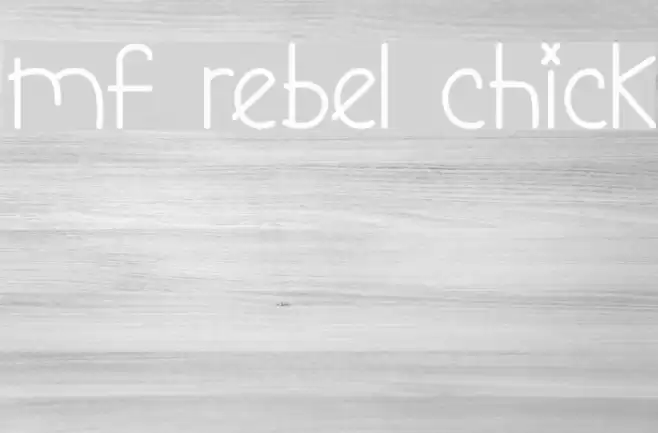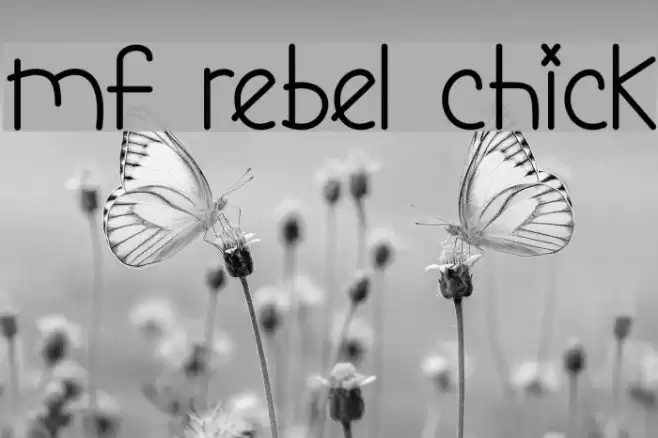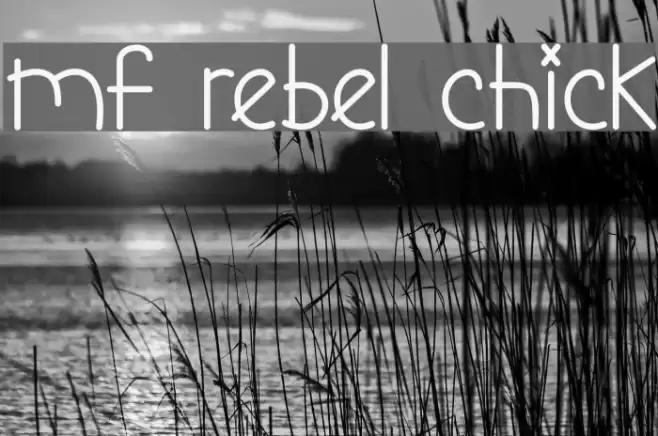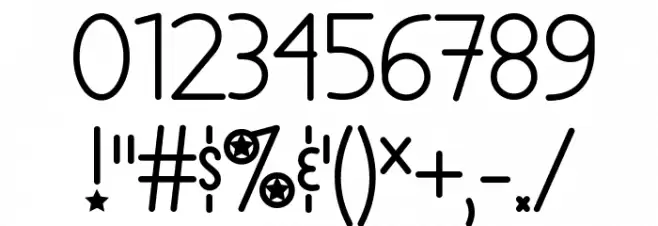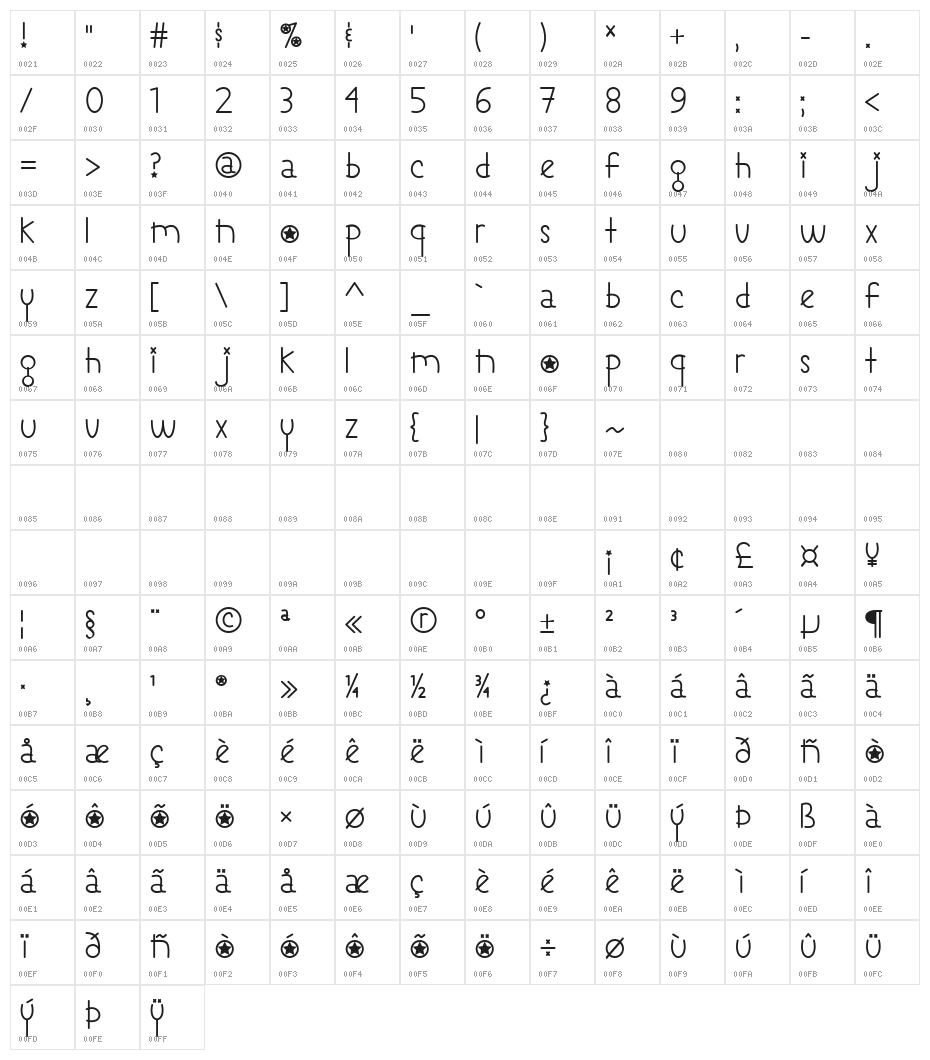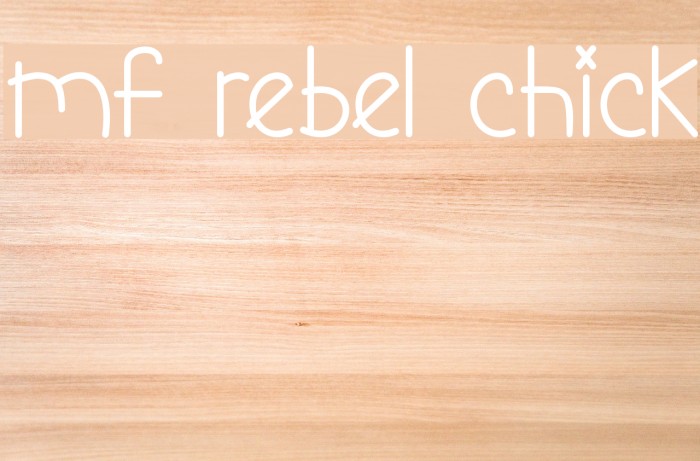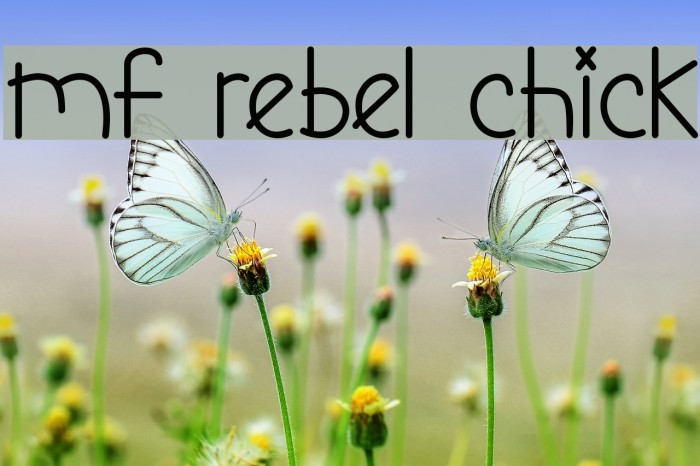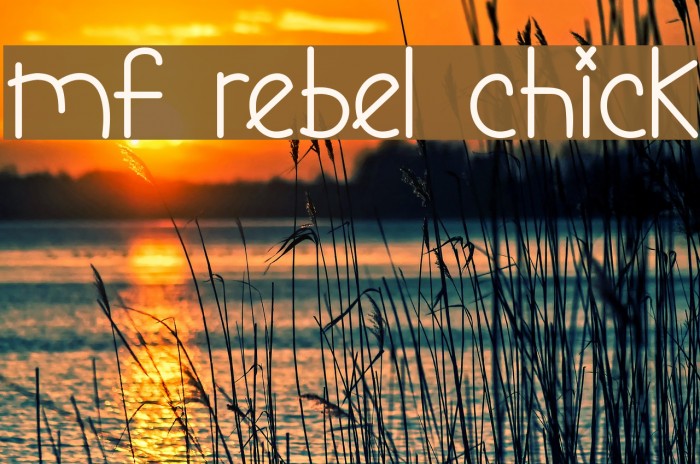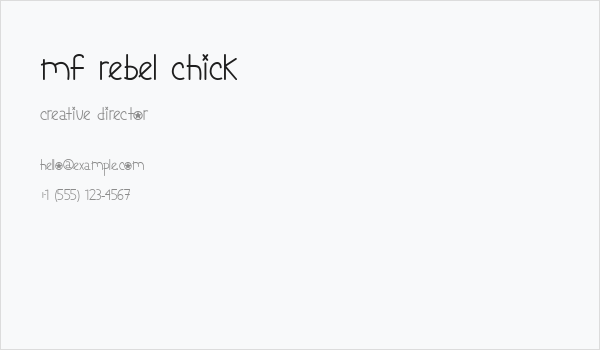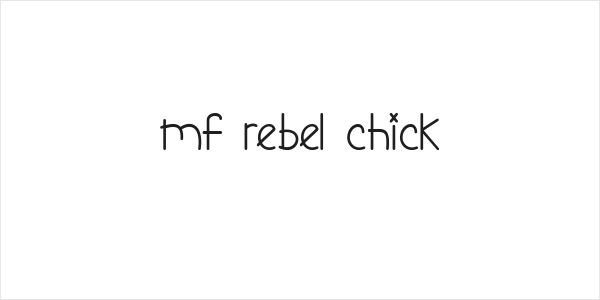
Mf Rebel Chick Font
Mf Rebel Chick Description
This playful and quirky font features a unique design with circular accents and star motifs integrated into certain characters, giving it a rebellious and fun vibe. The letters are rounded and slightly elongated, creating a sense of movement and energy. The lowercase 'o' and 'i' have distinctive embellishments, adding to the font's whimsical nature. The numbers maintain the same playful style, ensuring consistency across all characters. Special characters include stars and other decorative elements, enhancing the font's overall theme. This font is perfect for projects that require a touch of creativity and individuality.
A playful, quirky font with circular accents and star motifs, perfect for creative projects from Uncategorized fonts.
- Proposed Projects: Ideal for children's books, playful branding, creative posters, and event invitations.